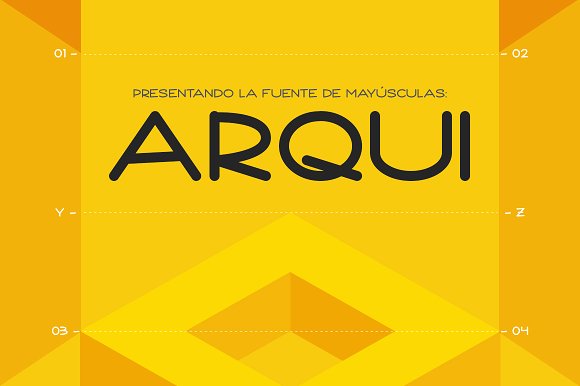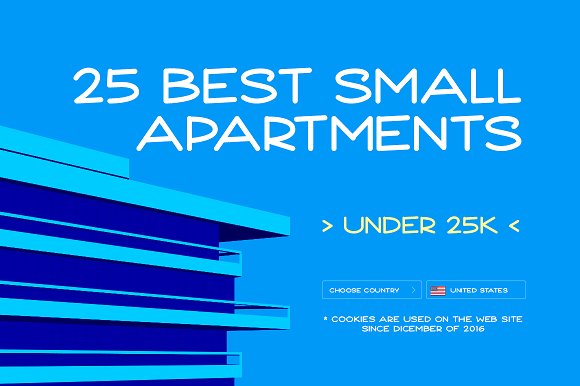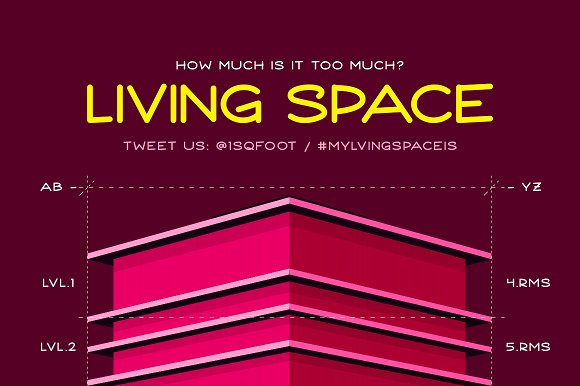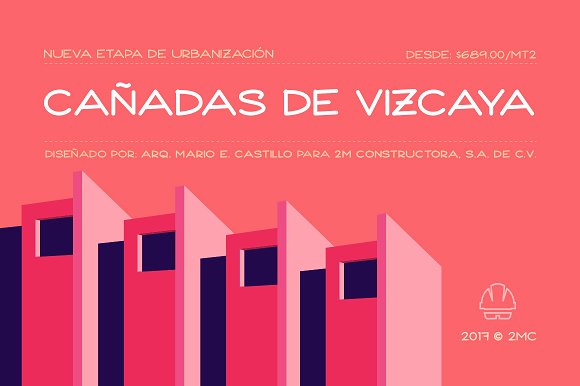
Arqui – Blueprint Font
Arqui is a clean and simple all caps sans serif font inspired by my dad’s (A.K.A the “Arqui”) architect style handwriting that is perfect for short sentences like titles and such, the file includes .OTF format.